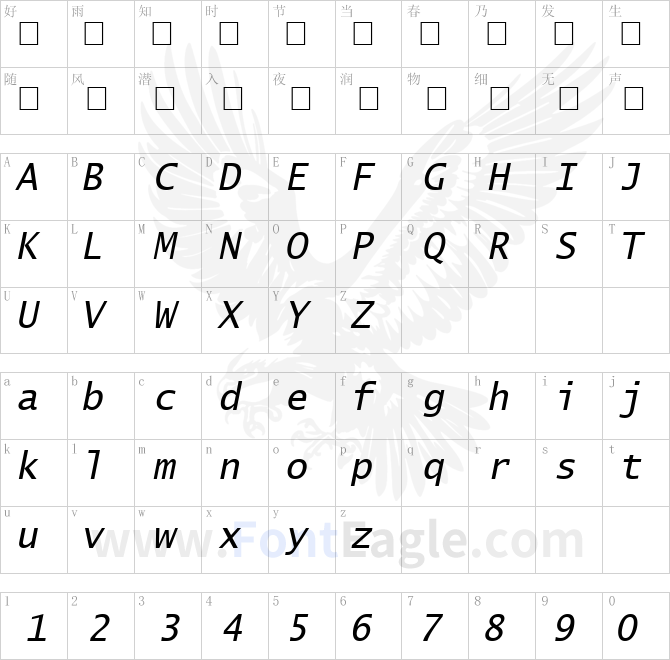
Lucida Sans Typewriter Oblique.ttf Font Image
- Font name:Lucida Sans Typewriter
- Font Subfamily ID:Lucida Sans Typewriter Oblique: B&H: 1991
- Font Full Name:Lucida Sans Typewriter Oblique
Lucida Sans Typewriter Oblique.ttf Characters Sample